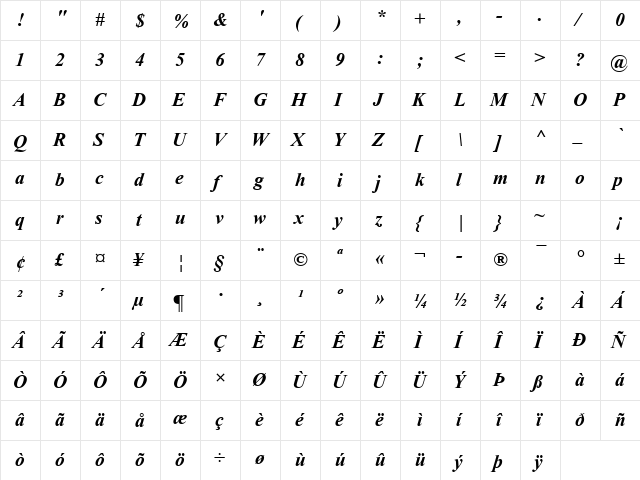
Aparajita Bold Italic
Design Context for Aparajita Typeface
Aparajita takes a measured approach to typography — its balanced proportions and neutral character make it a reliable workhorse for both digital and print work. Its italic angle brings a sense of urgency and motion to the letterforms. Its bold stroke weight gives it real presence on the page.
Pro Tip: Use Aparajita for emphasis, pull quotes, and subheadings where its slanted energy can add rhythm to the layout.